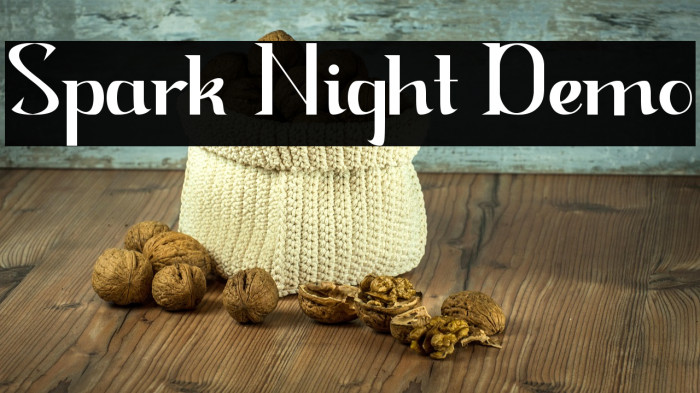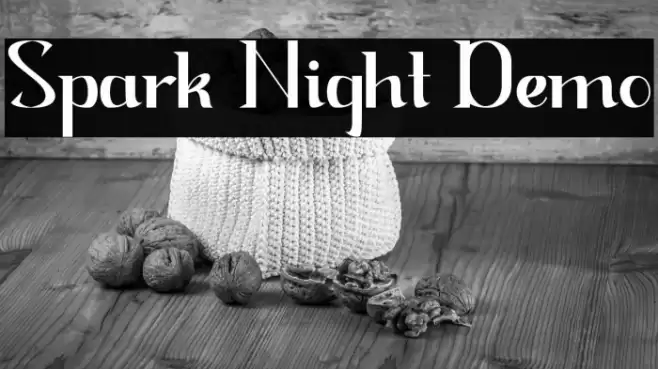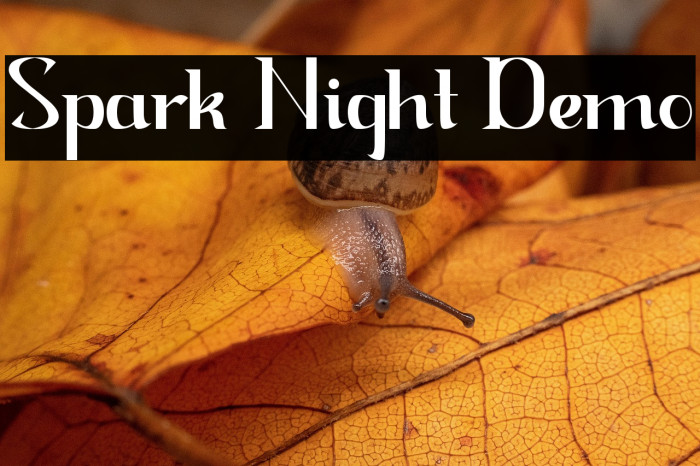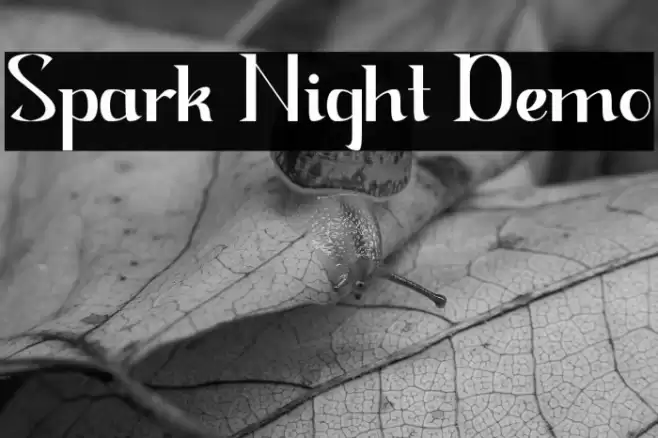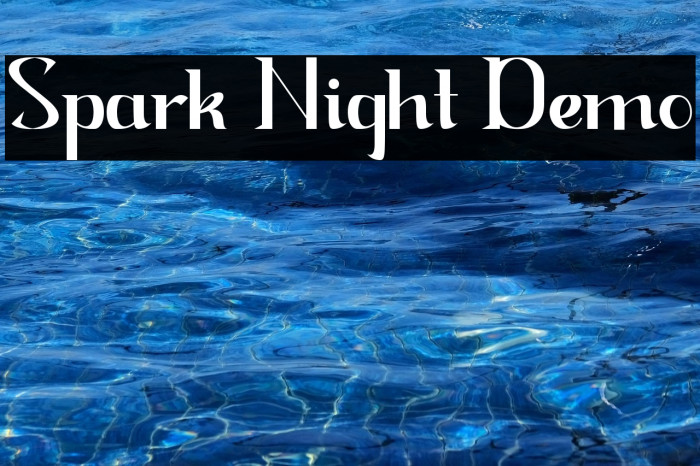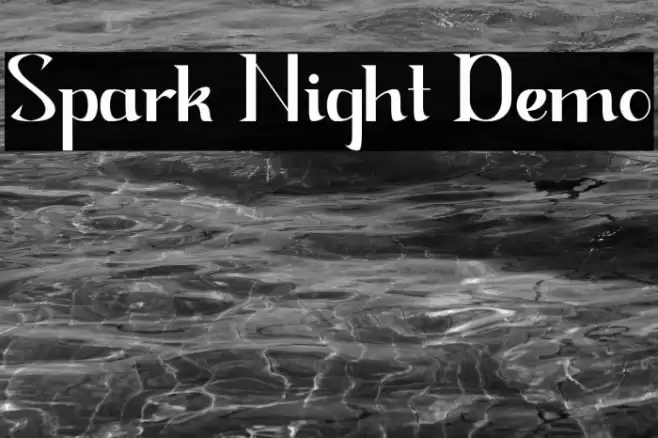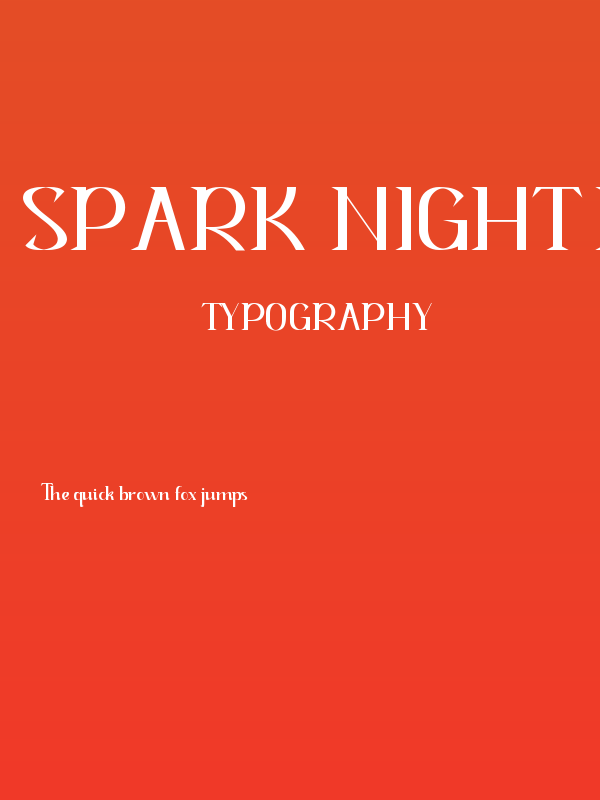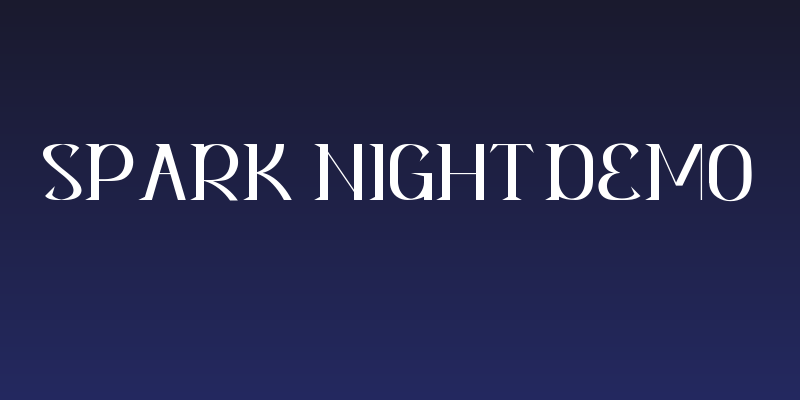
Spark Night Demo Font
Spark Night Demo Description
This font presents a unique blend of modern and classic styles, characterized by its sharp, angular serifs and high contrast between thick and thin strokes. The uppercase letters exhibit a bold presence with distinct, sharp edges, while the lowercase letters maintain a more fluid and rounded form, offering a harmonious balance. The numerals and special characters are crafted with the same attention to detail, ensuring consistency across all glyphs. The overall aesthetic is both elegant and striking, making it suitable for a variety of design applications.
| Proposed Projects | Ideal for branding, editorial design, and high-end product packaging. |